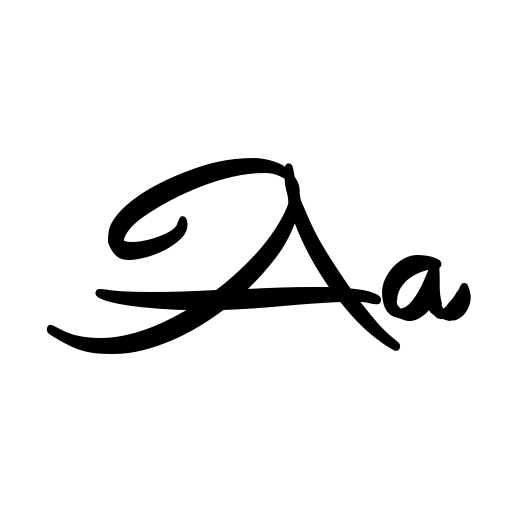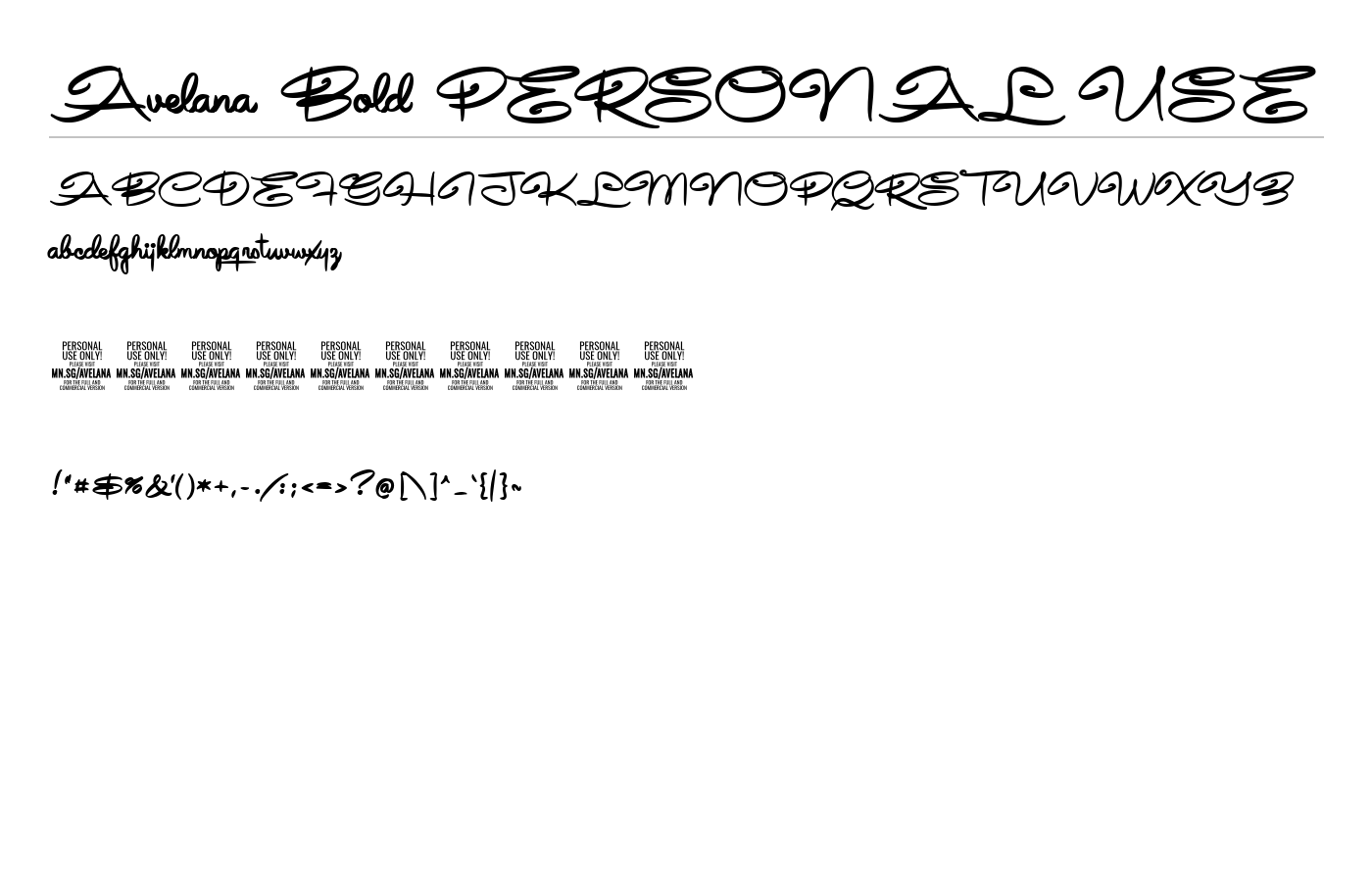
Avelana Medi is a bold, playful script font with a lively, hand-drawn feel. Its high contrast strokes and decorative swirls give it an energetic and casual personality, making it ideal for creative projects, personal branding, and invitations that want to evoke a sense of fun and individuality. This font works best in logos, headlines, and designs where a unique, artistic touch is needed.
Avelana Medi PERSONAL USE Font
About Avelana Medi PERSONAL USE Font
| Font family | Avelana Medi PERSONAL USE Font |